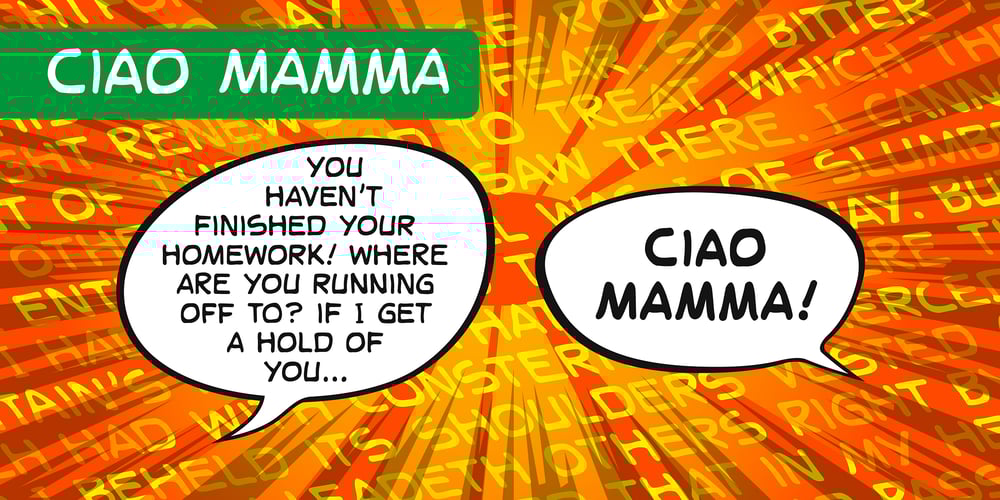
Ciao Mamma Font Family was designed by Paolo Lo Galbo and published by Comics Font Store. Ciao Mamma contains 4 styles and family package options. CIAO MAMMA is a vintage-style font, inspired by old almanacs and classic comics. It is ideal for auteur comics as well as commercial products. It is made with a marker, has contrast-free letters and regular spacing helping its legibility and clarity. The font is elegant and graceful and is reminiscent of the history of comics, evoking great, timeless comic strips.